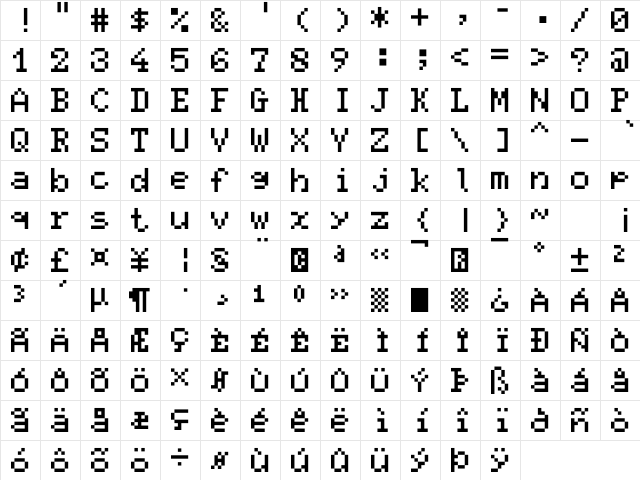
Pxl35DX Medium
Design Context for Pxl35DX Typeface
Pxl35DX takes a measured approach to typography — its balanced proportions and neutral character make it a reliable workhorse for both digital and print work.